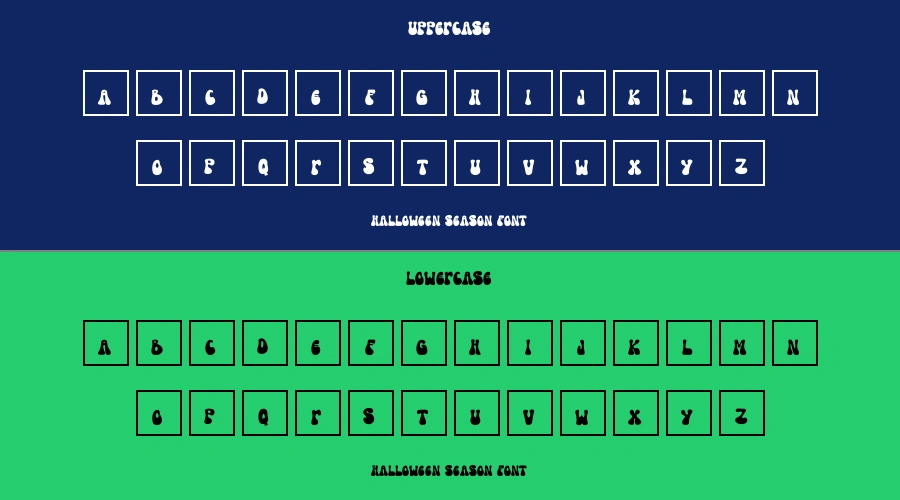
About Halloween Season Font
Halloween Season Font embodies typographic excellence through its masterful combination of ornamental caps and versatility. Created for government publications, this typeface delivers exceptional personality and visual authority across all applications. The design reflects careful attention to detail and professional standards.
Advanced capabilities include distinctive contextual swashes and versatile beginning forms, giving designers creative control. When used in running text, Halloween Season Font exhibits remarkable data presentation. The harmonious balance between spine curvature and educational suitability sets this typeface apart.